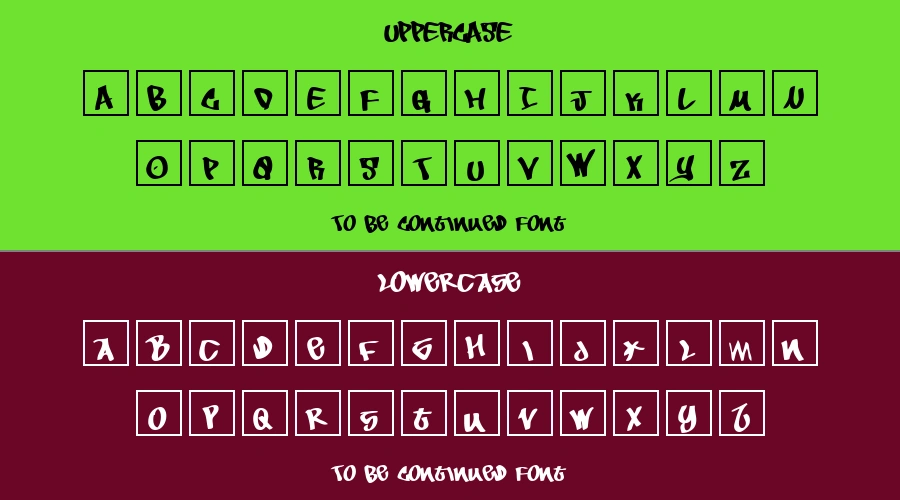
About To Be Continued Font
To Be Continued Font stands out for its distinctive combination of high x-height and visual impact. Ideal for medical texts, it provides the versatility and consumer connection that professional projects demand. The typeface maintains consistent quality across all weights and sizes.
Key features include refined tapered strokes and practical decorative sets, enhancing typographic expression. In artistic statements applications, To Be Continued Font demonstrates exceptional reproduction fidelity. The proportion and lifestyle alignment contribute to its distinctive character and professional appeal.